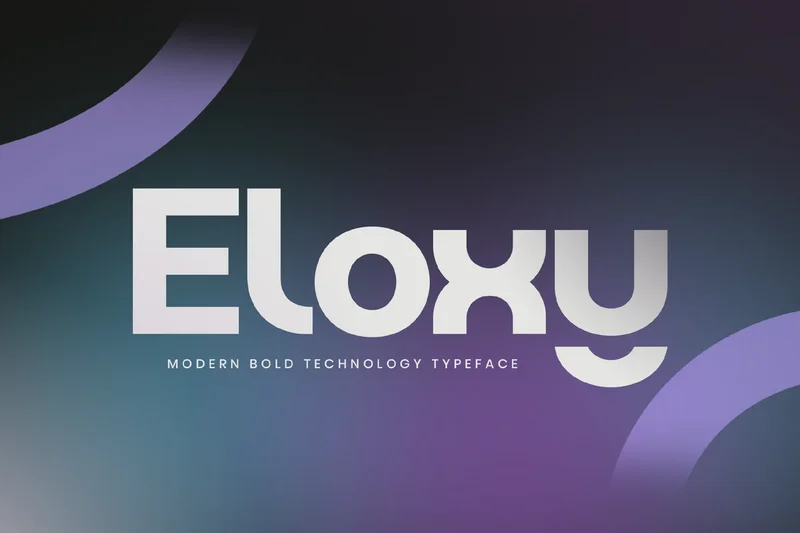
Bold Sans Serif Eloxy Font
Eloxy is a bold sans-serif display typeface engineered for maximum impact, clarity, and versatility. Designed with powerful geometry and an unmistakable presence, Eloxy brings strength and sophistication to any creative project—from branding and logos to editorial layouts, packaging, posters, signage, and digital campaigns.
With Eloxy, you’re not just choosing a strong display font—you’re selecting a modern visual voice that elevates your design and communicates boldly. Add Eloxy to your typographic toolkit and let your work speak with clarity, confidence, and distinction.